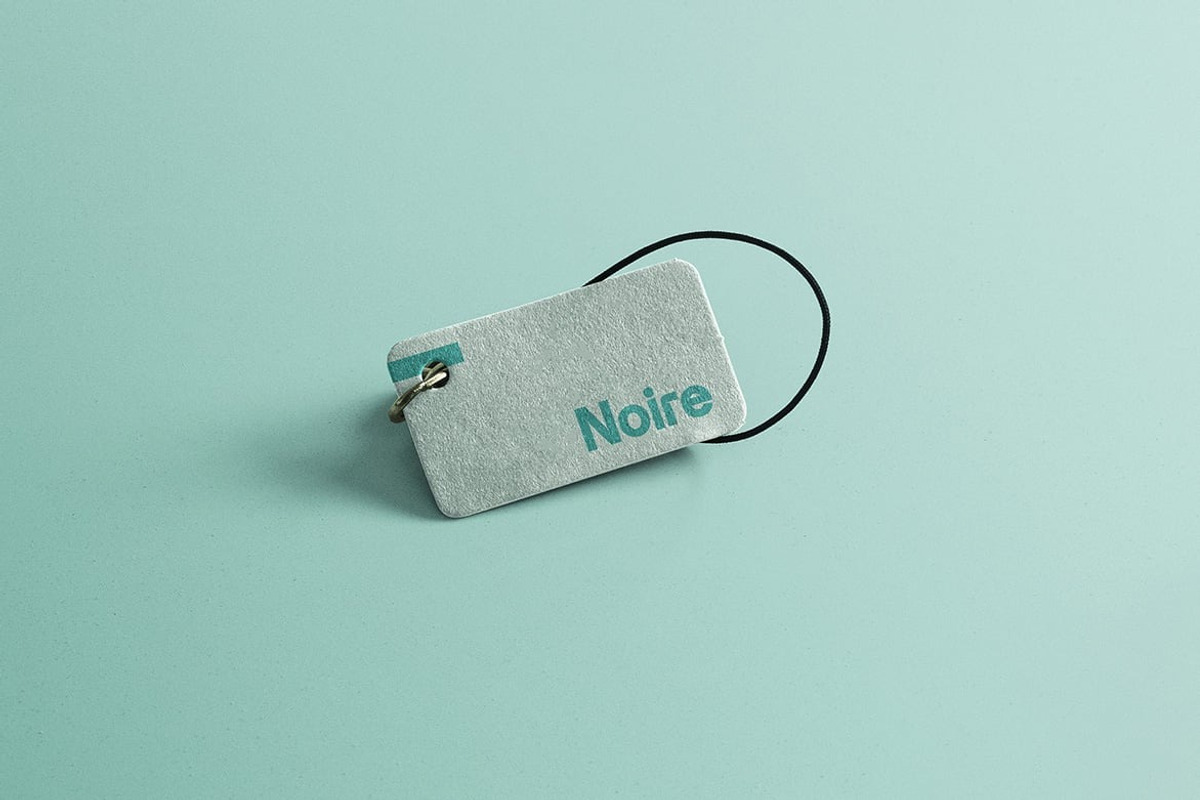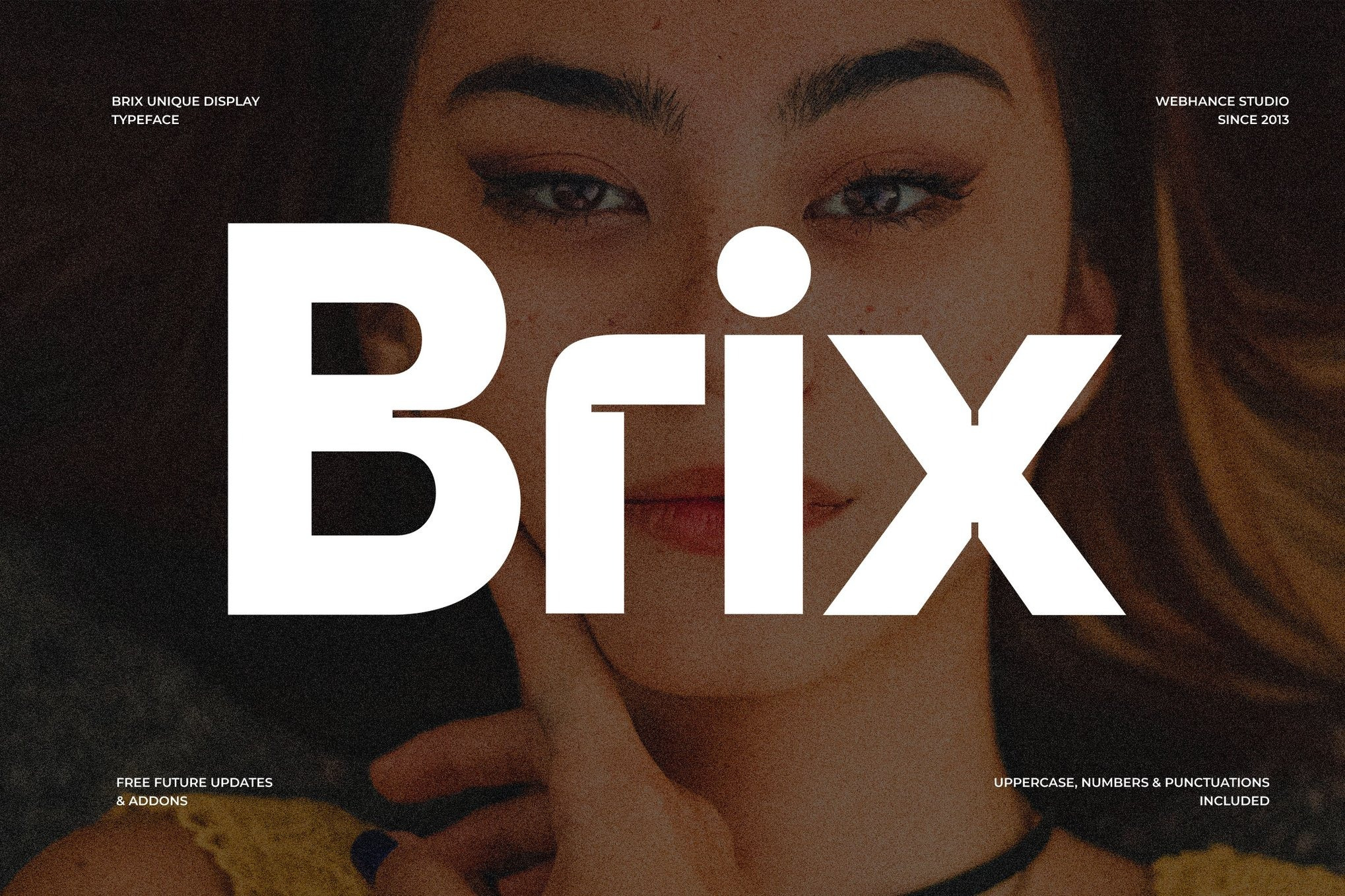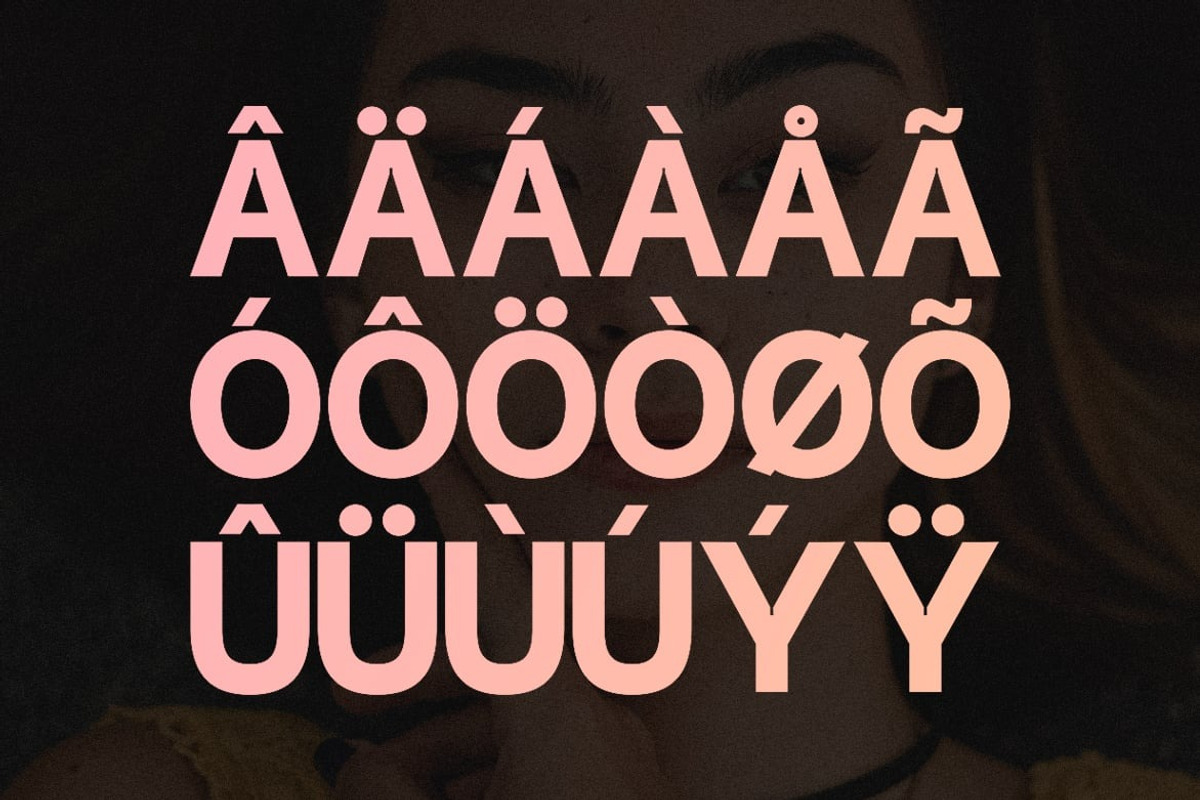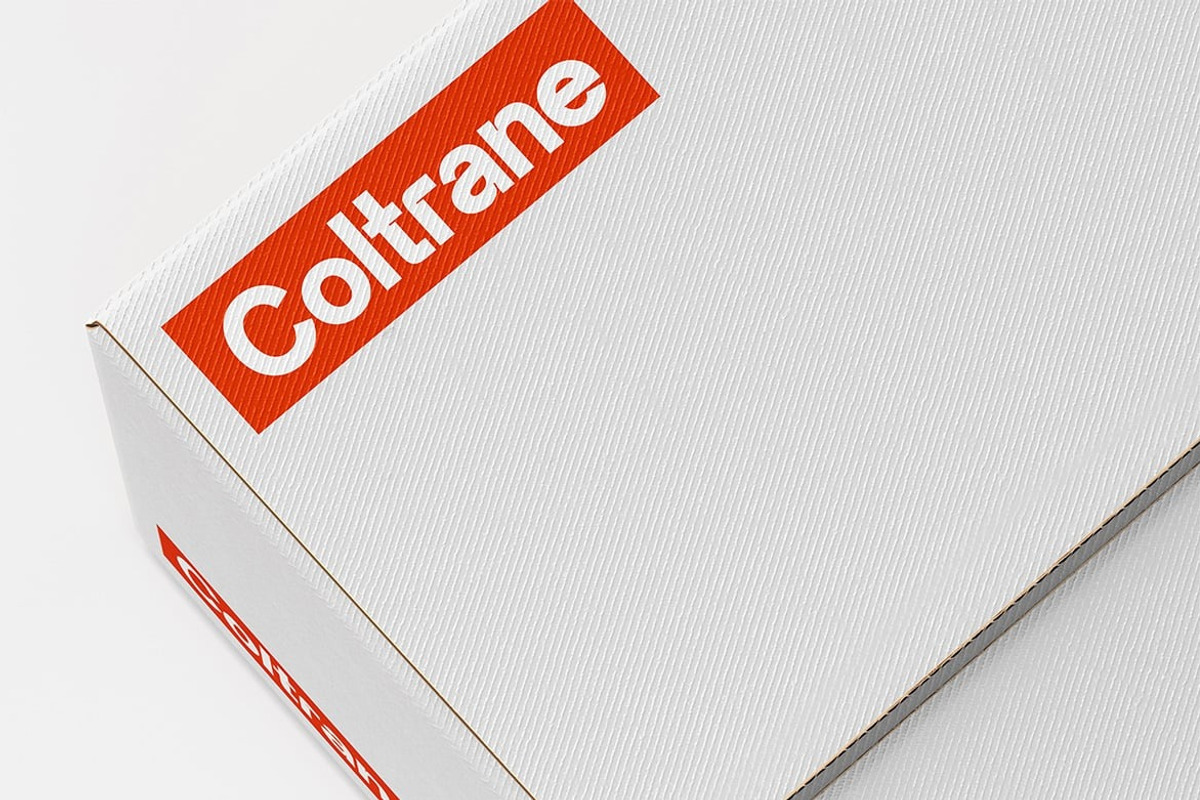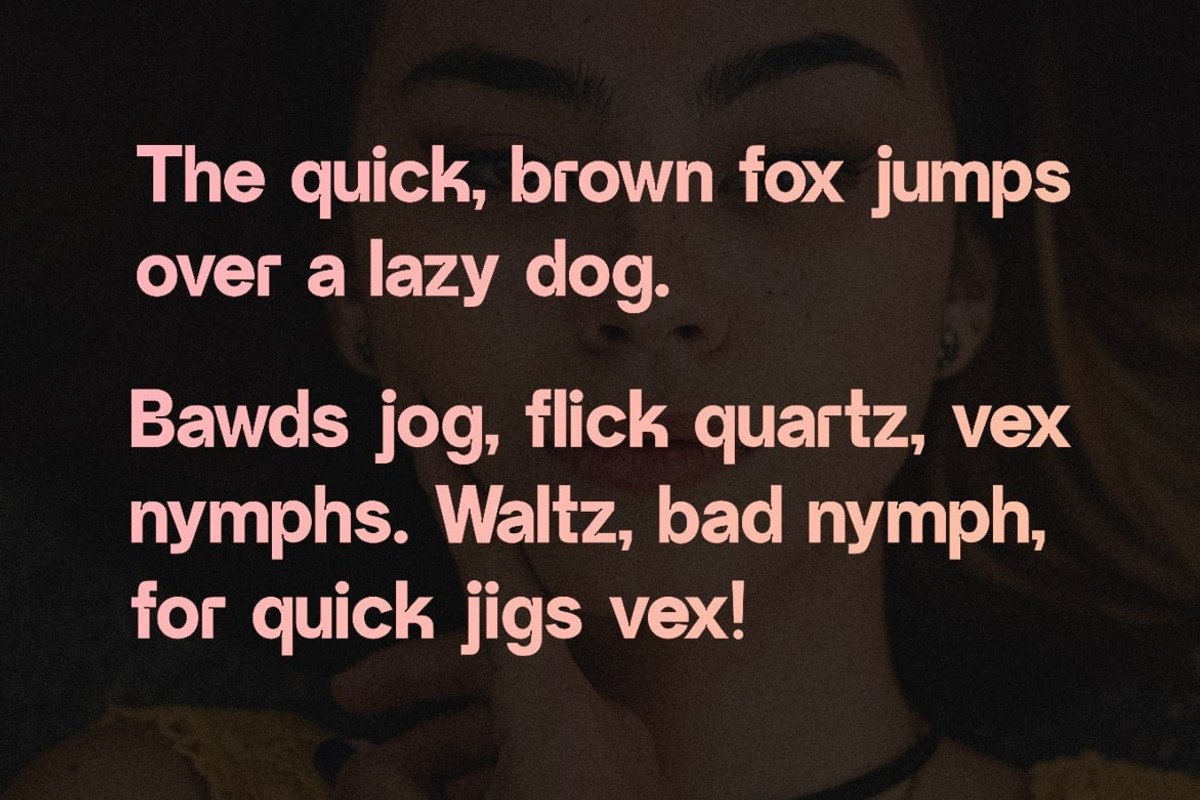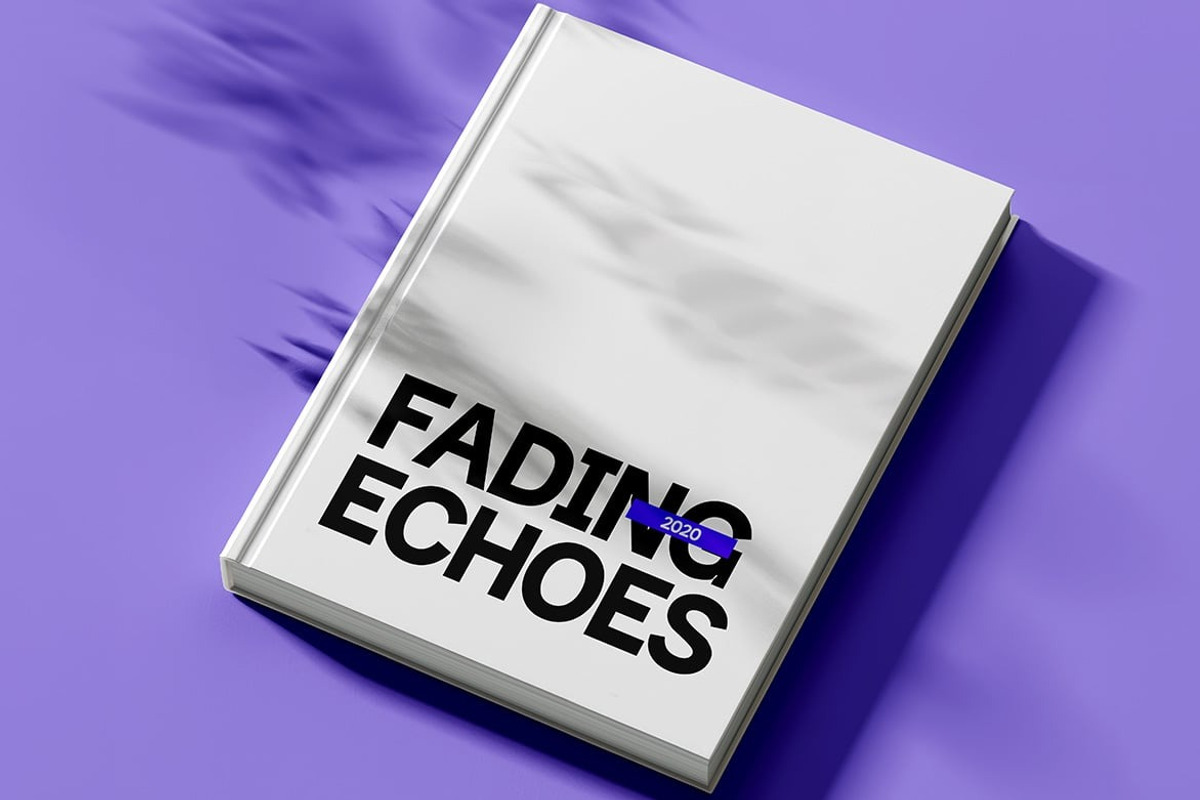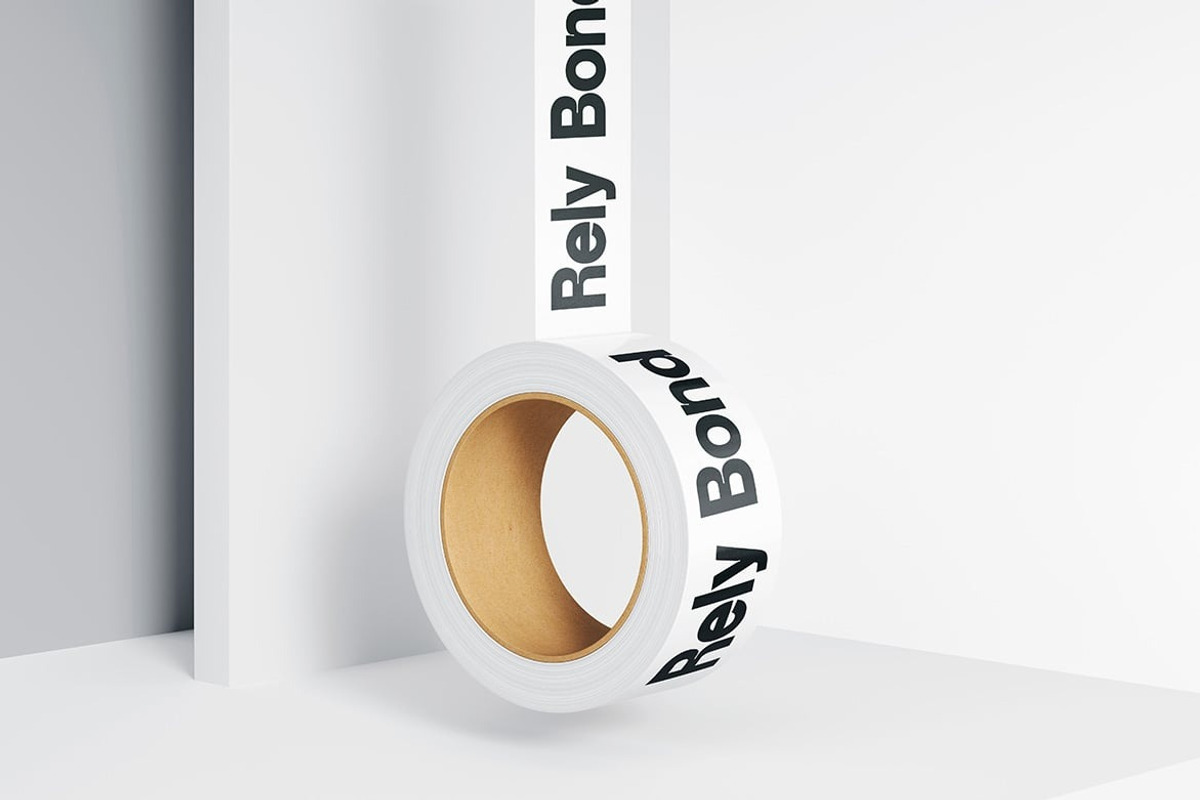
Brix - Display Sans-Serif Font
The Brix font family is a contemporary sans-serif typeface designed for versatility and elegance. With its clean lines, balanced proportions, and minimalist aesthetic, Brix ensures high readability across various mediums. Whether used for branding, editorial design, UI/UX interfaces, or print, this font brings a refined, world-class look to your projects.